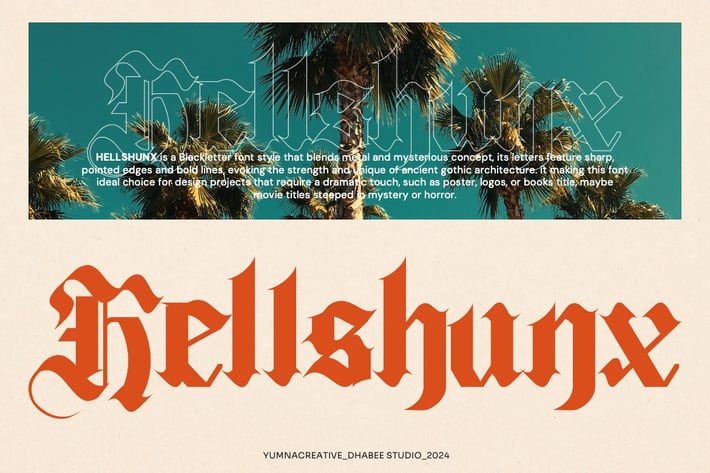
Hellshunx - Classic Blackletter Font
Yumnacreative
Introducing Hellshunx - Classic Blackletter Font
This Font is a delicate, elegant and flowing handwritten font. It has beautiful and well as a unique blend of ligatures a letter, so that the authors compose it with a and little swirly embedding, so that a modern font is formed and ready to make a statement by adding elegant and unique flair to your next design project. Add it to your most creative ideas and notice how it makes them come alive!